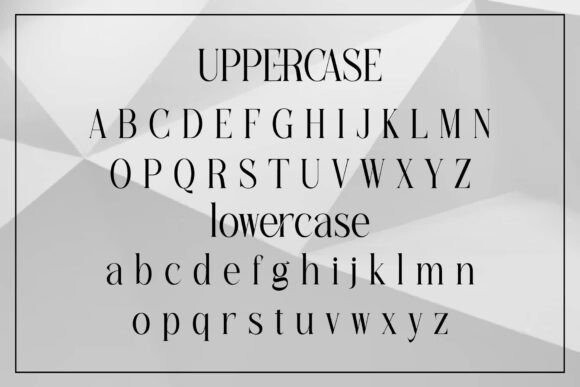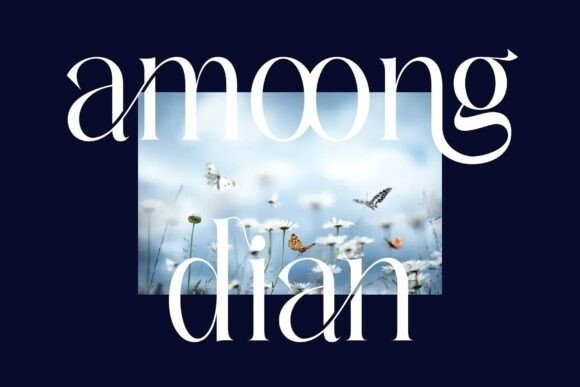
Cheerfull Font
Designer: handpixel co
Cherfull Font is an elegant serif font, that features a very delicate and classy look. Not too thin and not too thick, balanced and varied, Cherfull was designed to enhance the beauty of your projects.